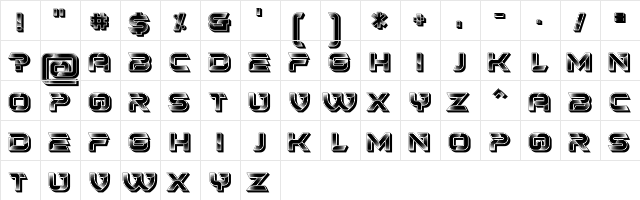
Squalor Regular
Design Context for Squalor Typeface
Squalor is a composed and adaptable typeface that performs quietly and consistently across a wide range of design contexts.